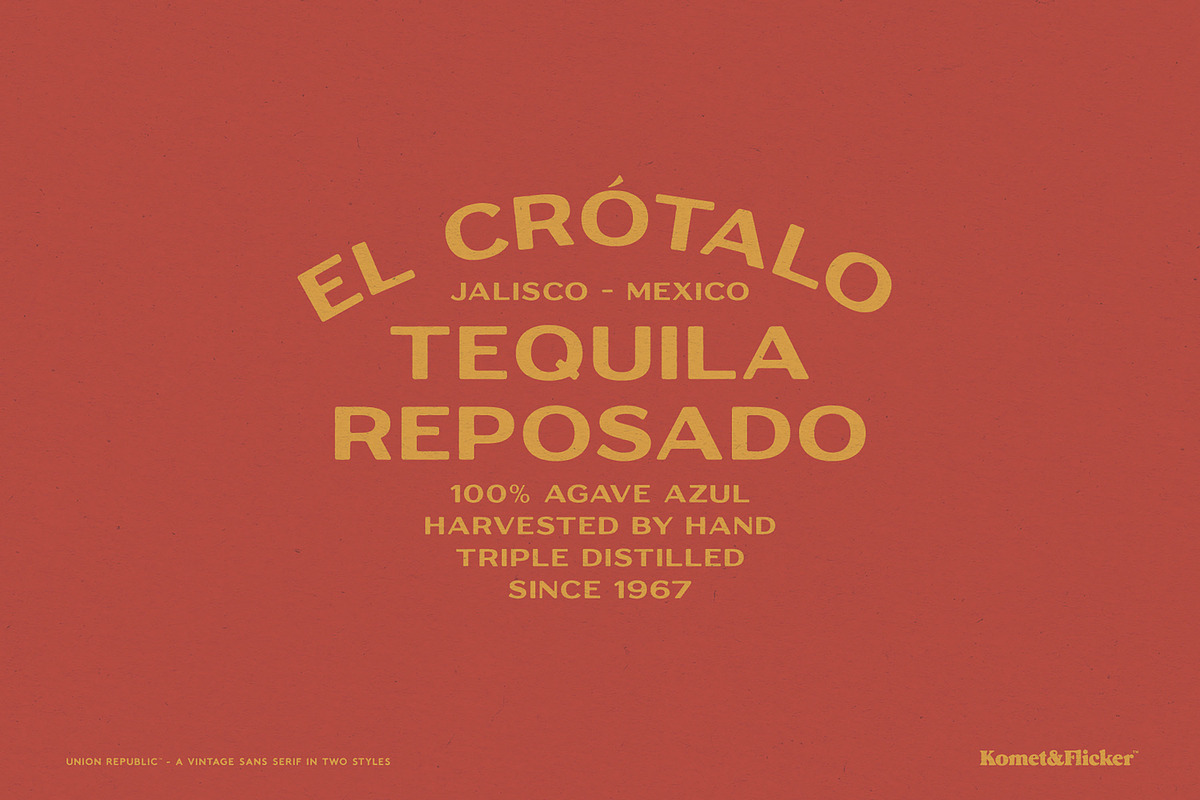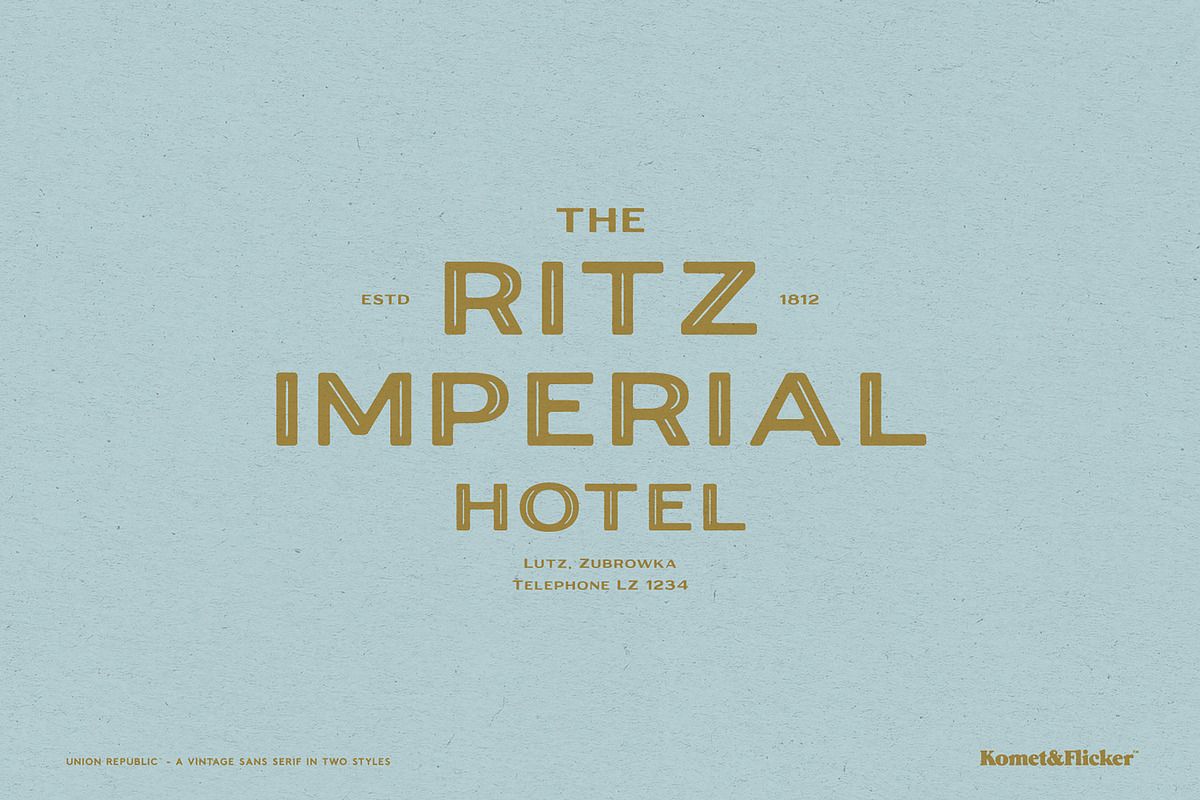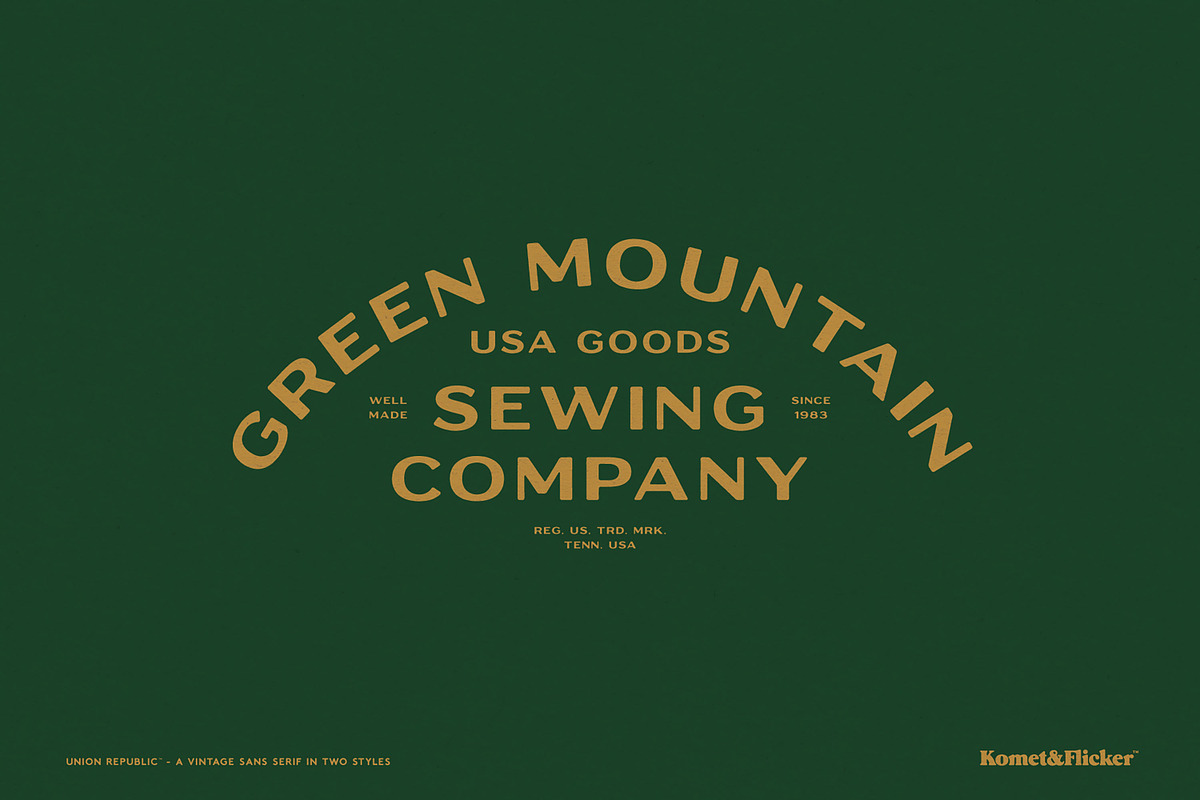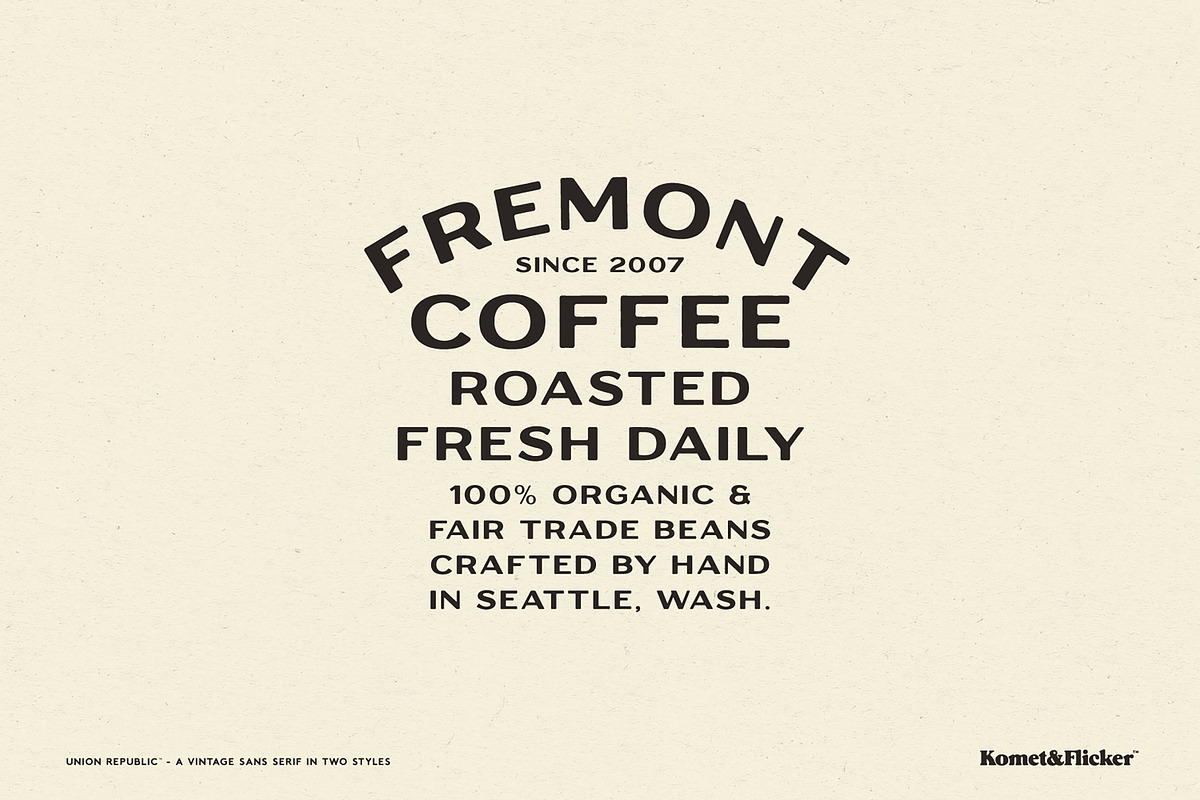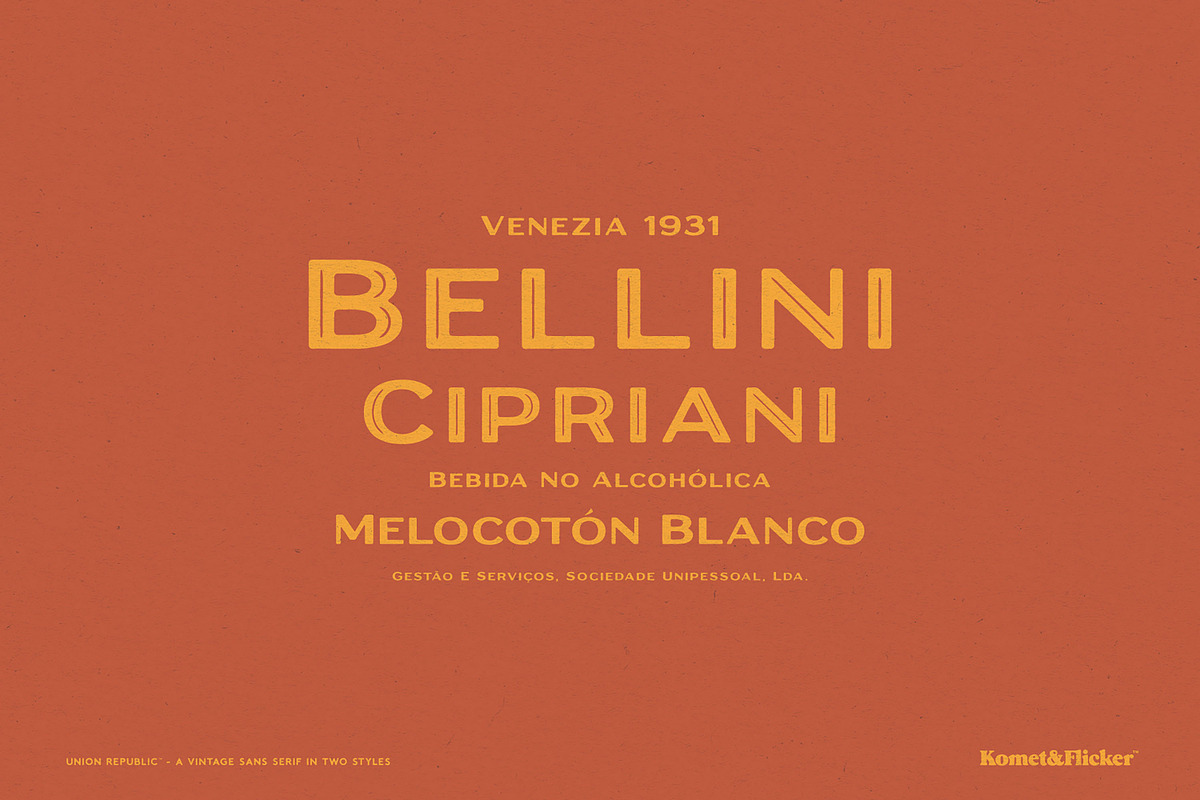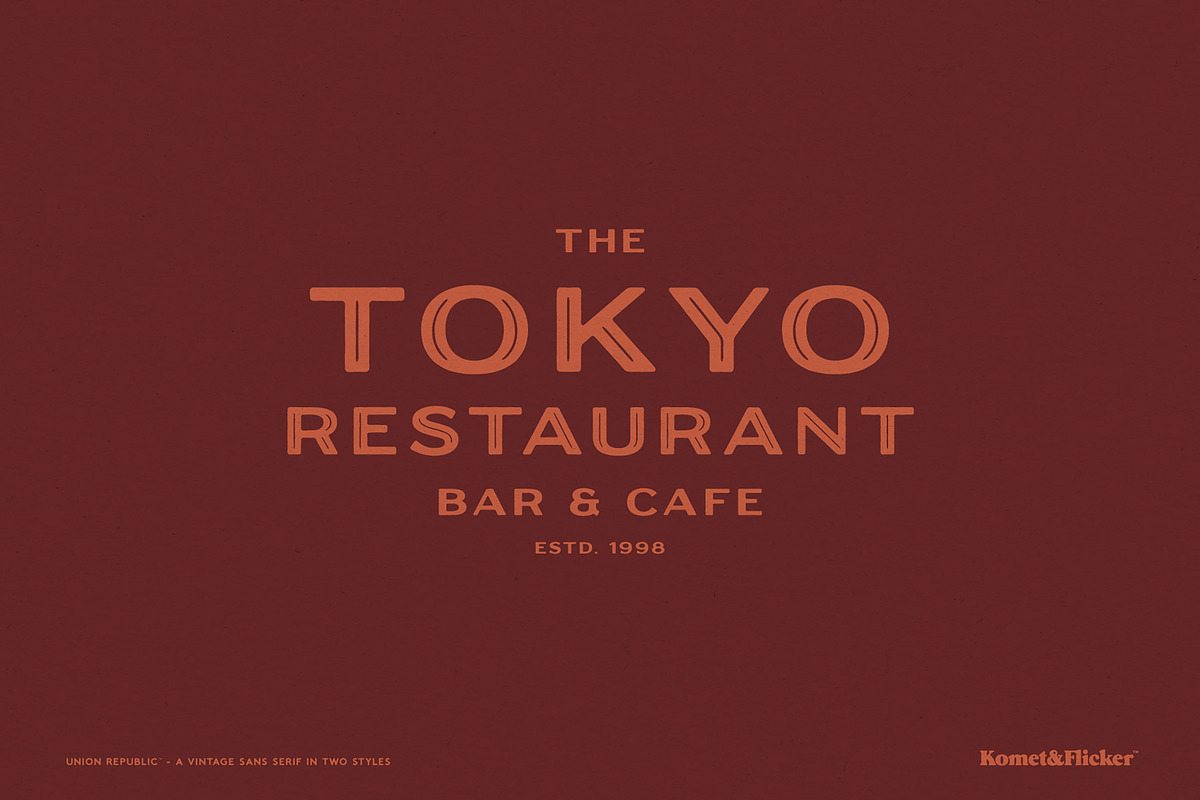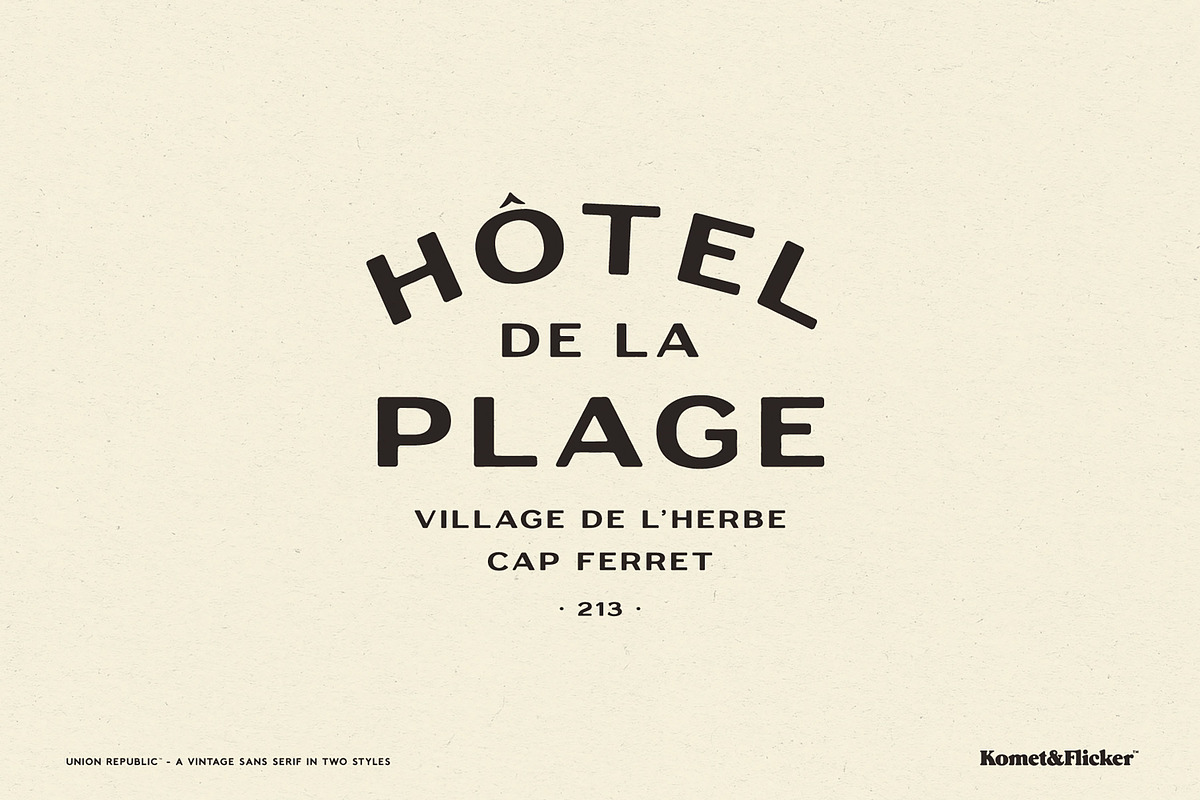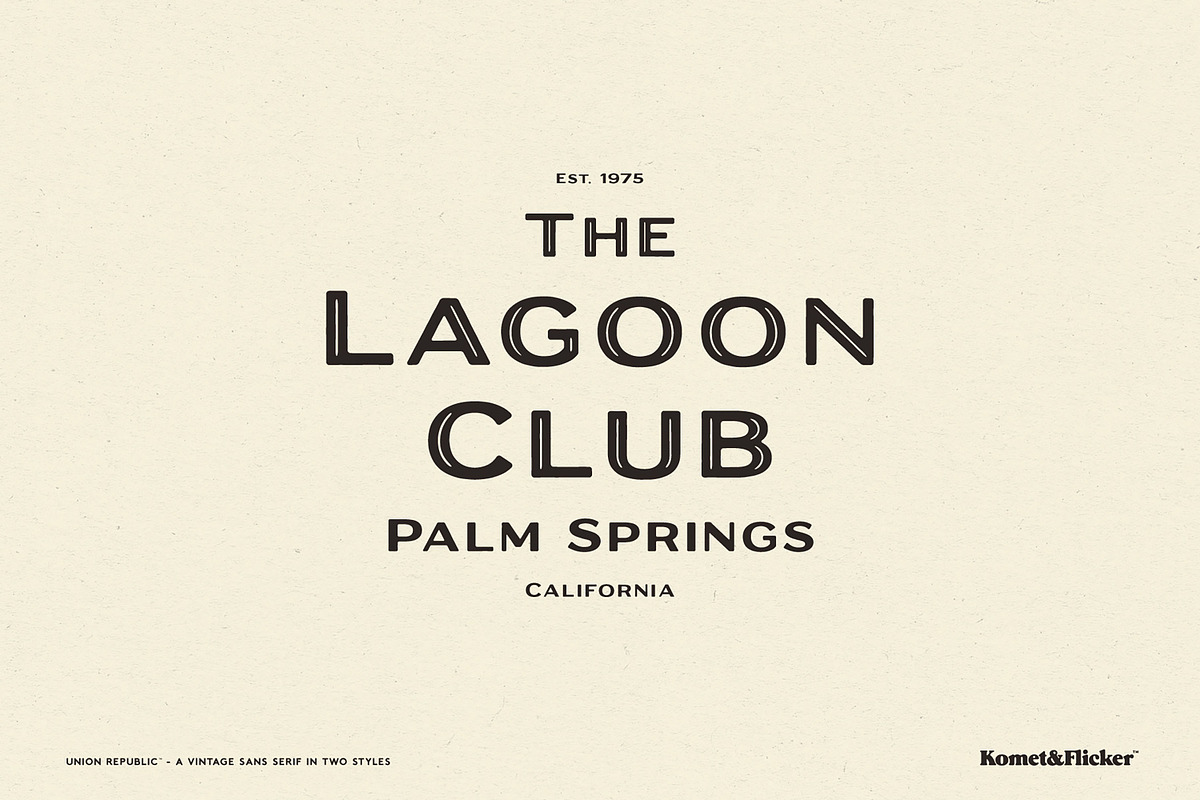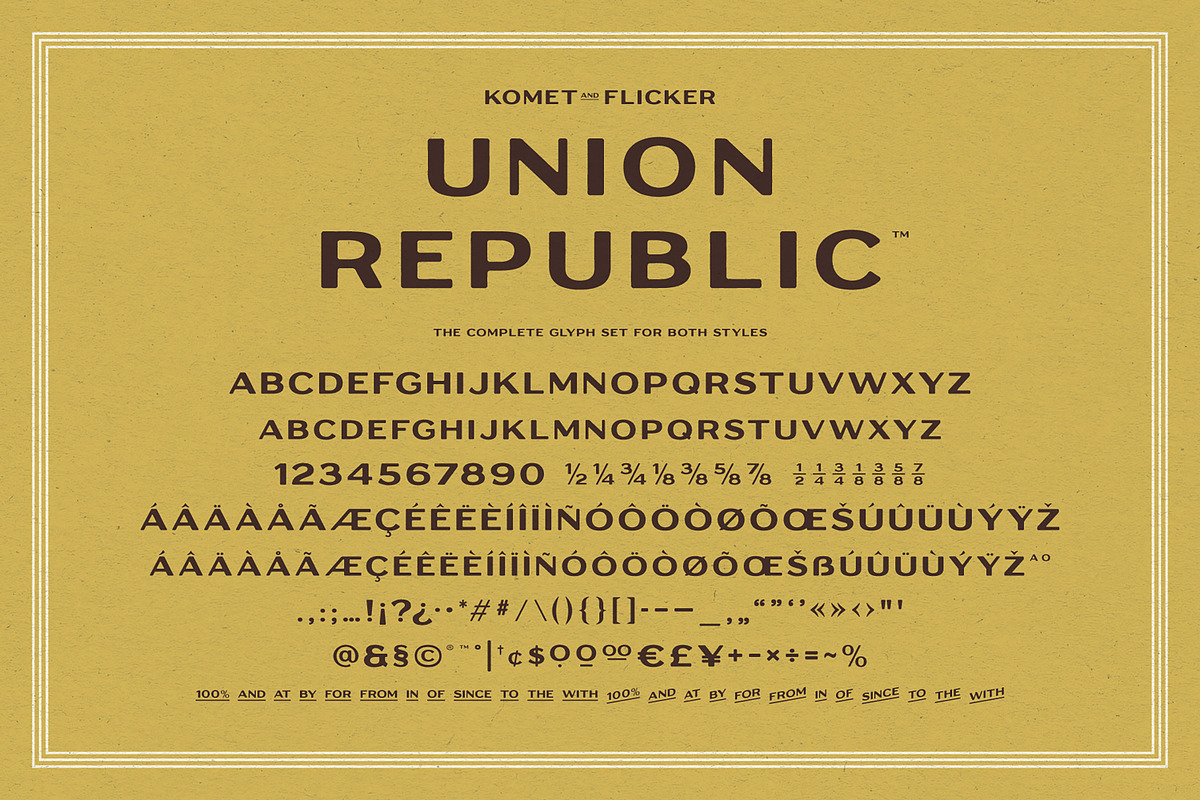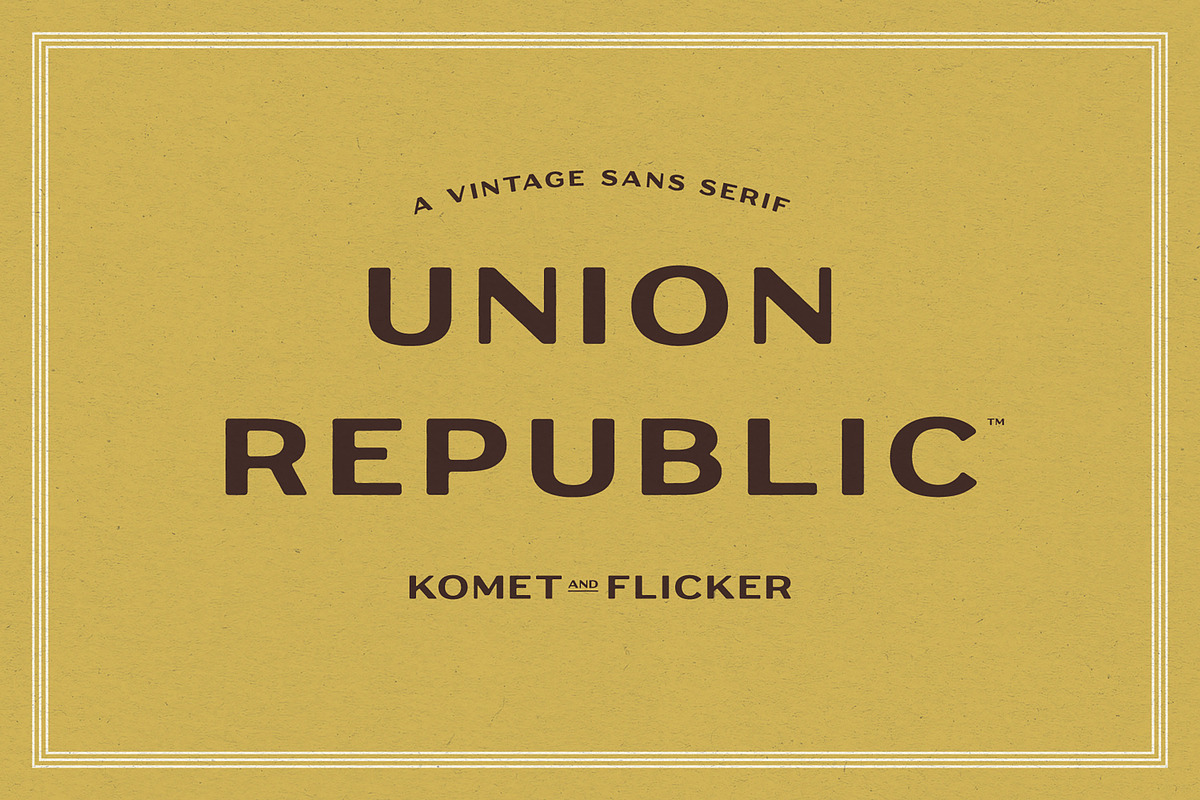
Union Republic
Union Republic is a small-caps sans serif font that channels the typography of a bygone era. Drawing from the hand-painted signage and stamped lettering of vintage Americana, this typeface delivers sturdy, uniform letterforms with the kind of character that only comes from history. Union Republic also comes with a unique set of 12 custom connecting words in two styles, designed to add seamless flow to your typography.
Whether you're designing a label, a logo, a badge, or a headline that needs to feel both classic and contemporary, Union Republic brings authenticity and craft to every word.
THIS FONT COMES IN TWO STYLES
Union Republic Regular
Union Republic Regular Inline
THIS FONT INCLUDES
Full A-Z uppercase and small caps latin characters
Select European specific characters
Numbers, punctuation, and select symbols
Two styles of pre-made fractions
Set of 12 custom connecting word glyphs in two styles